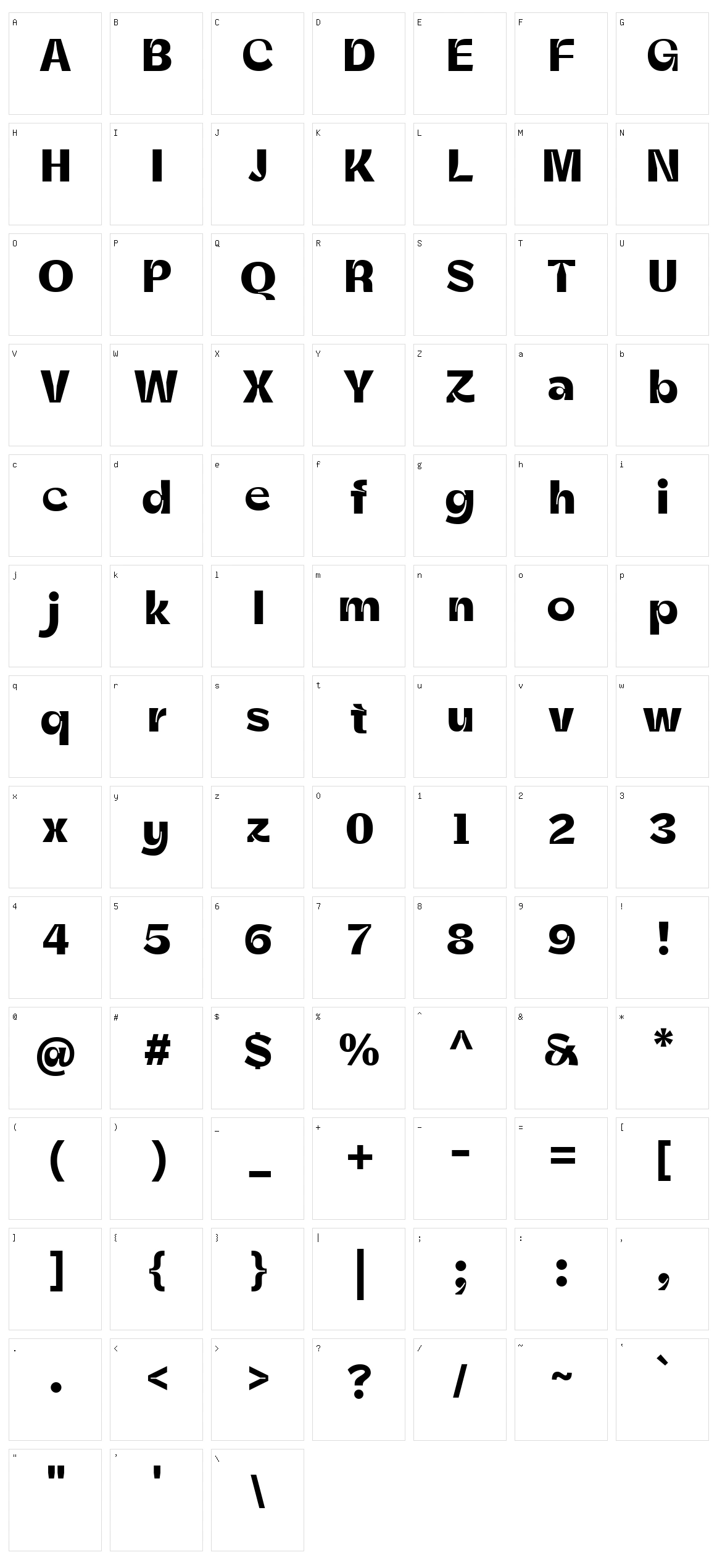
The free font Zt Shago is carefully designed by Khaiuns, showcasing a thoughtful balance of creativity and usability and falls under the Sans serif font style. When you download the ZIP file, it contains only 1300.51 KB of font files, making it lightweight and quick to download. Please review the license details below to understand permitted usage and distribution rights. If license information is not available, we recommend using this font for personal projects only or contacting the author directly for commercial usage permissions.